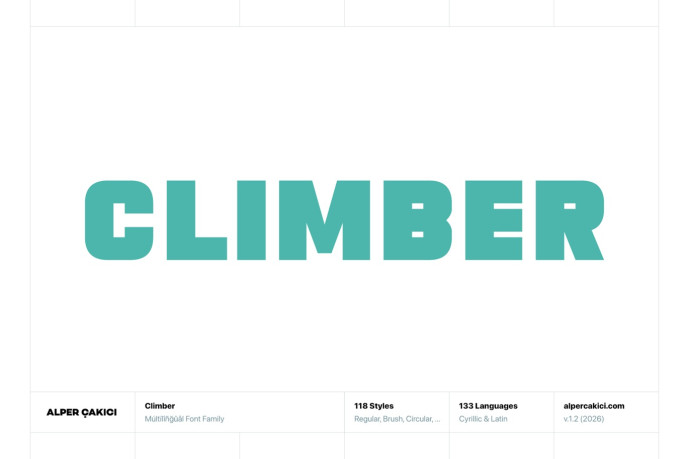
Climber – Heavy Font Family
Designer: Alper Çakıcı
Climber is a heavy sans-serif typeface built for impact. Its **boldv structure and strong geometric forms give it a confident, modern presence while maintaining a rugged, textured personality. Designed with versatility in mind, Climber includes an extensive family of 118 styles, ranging from clean Regular and Rounded cuts to expressive variations like Brush, Chalk, Rough, Grainy, and Rusty .
The typeface features both standard and circular constructions, offering unique visual flexibility for different design directions. Whether you need sharp edges or softer rounded terminals, Climber adapts effortlessly across styles. The wide range of distressed and hand-crafted effects adds depth and character, making it ideal for projects that demand a bold, tactile aesthetic.